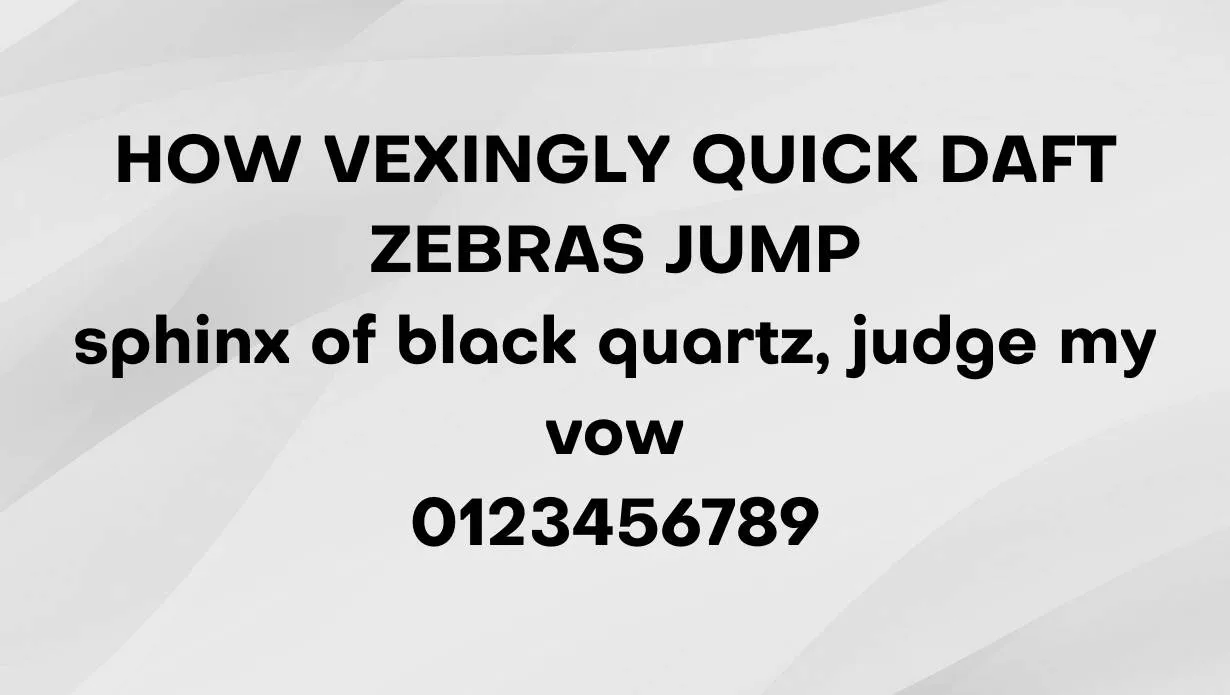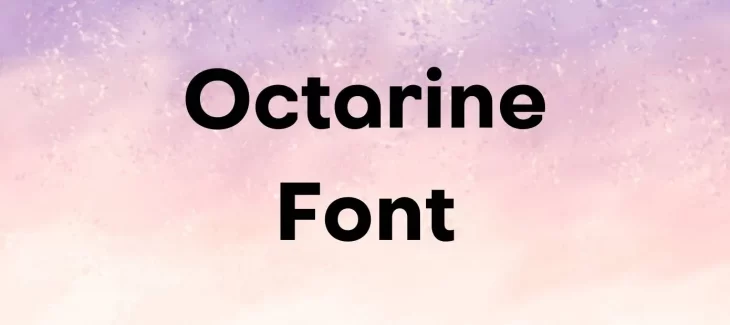
Octarine Font is a sans-serif typeface designed by Dalton Maag. The font was commissioned by Google and is the default font for the Android operating system. This Font is named after the color octarine, which is the eighth color of the rainbow.
This font was released in 2011 and is available in four weights: light, regular, bold, and black. This Font is available in both TrueType and OpenType formats. Moreover, you can also try adonay font for your logos and other typography designs as well. The font includes support for Latin, Cyrillic, and Greek character sets.
This Font was designed with readability and legibility in mind. The typeface has a large x-height and wide proportions. This Font was designed to be used on a variety of devices, from small mobile phone screens to large desktop monitors.
Who Used Octarine Font?
This font is a versatile typeface that can be used for both body text and headlines. This font style is also commonly used in Print design, motion graphics, and web design. You can use it for event posters, product packaging, book covers, or website headers.
Octarine Font Family Appearance
What are the benefits of using Octarine font?
The font was designed specifically for use on screens. The large x-height and wide proportions make the typeface highly legible on a variety of devices.
What are some of the most popular uses for Octarine Font?
Some popular uses for this font include Body text, Headlines, Websites, Mobile apps, and Print design.
What is Font Octarine?
This font is a sans-serif typeface designed by Dalton Maag. The font was commissioned by Google and is the default font for the Android operating system.